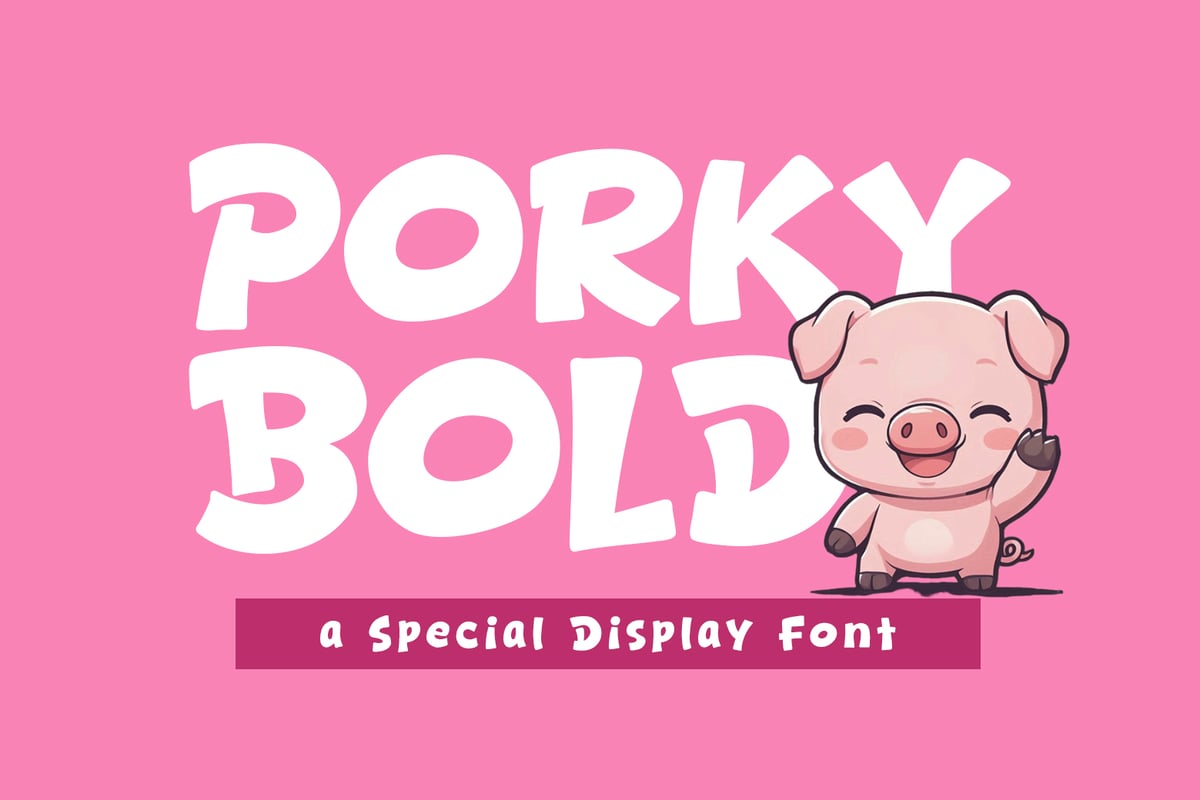
Porky Bold - Cozy & Display Font
Create magical designs that sparkle with childlike wonder using Porky Bold's irresistibly cozy display font!
This contemporary handwritten typeface explodes with vibrant personality and spirited energy that instantly grabs attention. Each character radiates charm and whimsy, making it the ideal choice for crafting memorable designs that truly stand out from the competition.
Porky Bold's commanding presence and delightful character design make it incredibly versatile across multiple applications including posters, logos, magazines, book covers, and banners. Perfect for any project that needs to communicate joy, playfulness, and approachable charm.